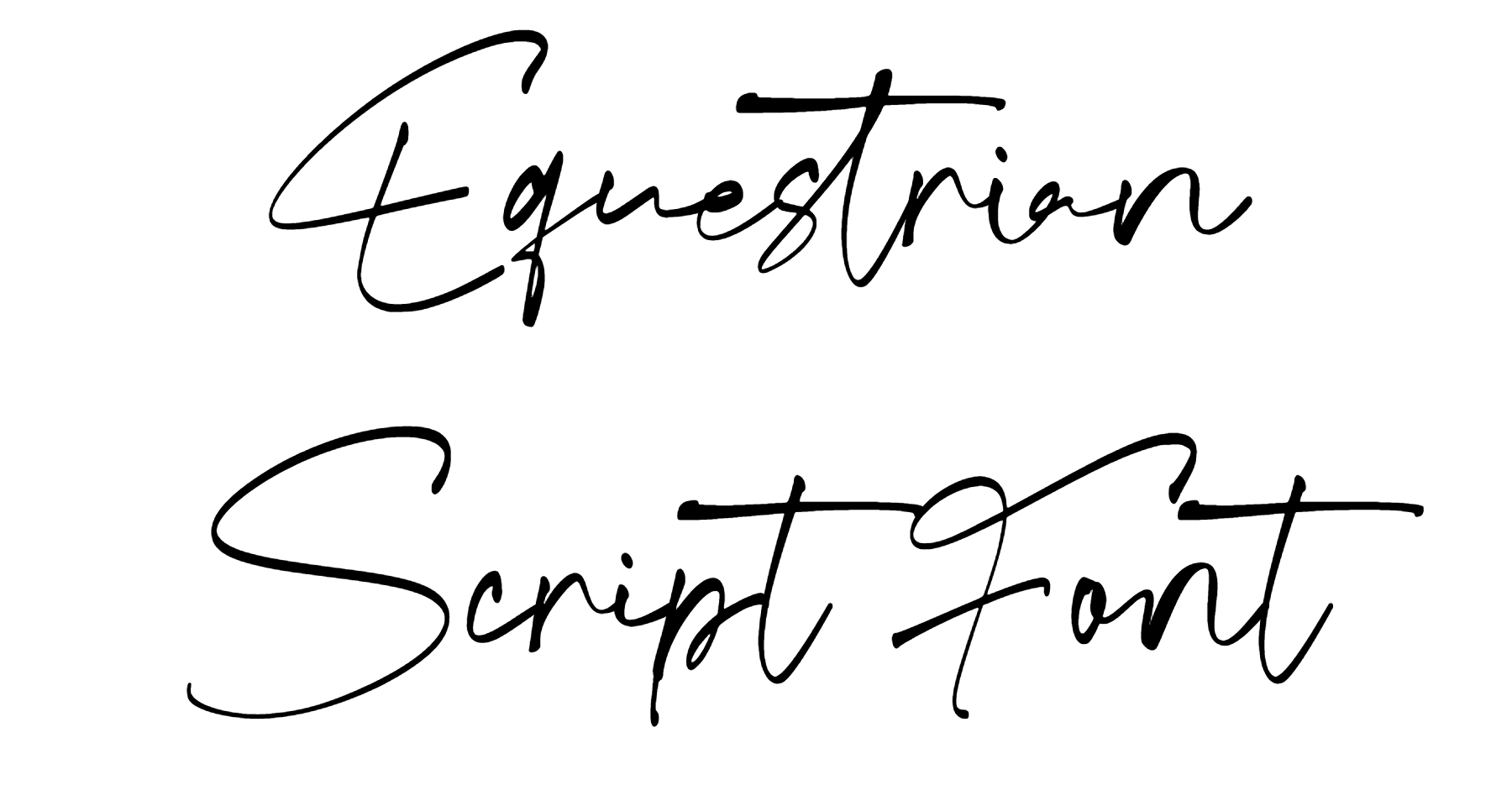
Equestrian Script
Equestrian Script is a handwritten font made by Donis Miftahudin (2021). It looks like someone actually wrote it by hand: relaxed, friendly and a little imperfect in a good way. It's a free download, and you can try it with your own text in the preview above first.
- Designer: Donis Miftahudin
- OpenType features: Ligatures and 2 stylistic sets
With complete upper and lowercase letters and all ten digits, Equestrian Script is ready for real wording, not just a single headline. Everyday marks like &, !, ? and @ are there too. Thanks to its accented letters, it also works for Spanish, French, German, Portuguese and Italian, not just English.
Equestrian Script is a natural fit for greeting cards, journal pages and friendly social posts. Set it a bit larger than you would a normal text font. Handwriting styles lose their charm once they get too small to read comfortably.